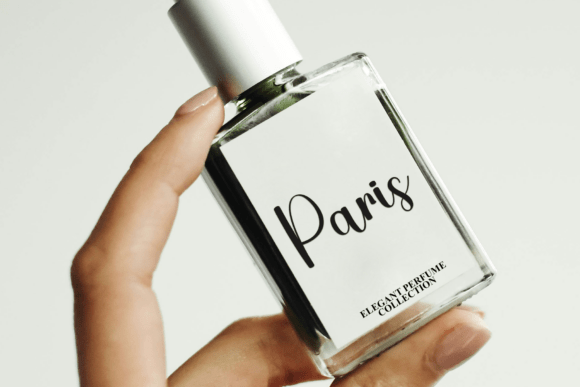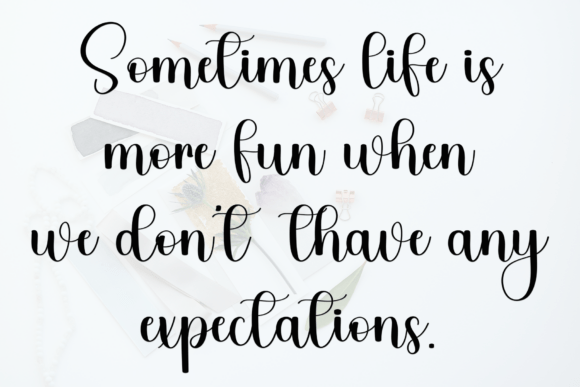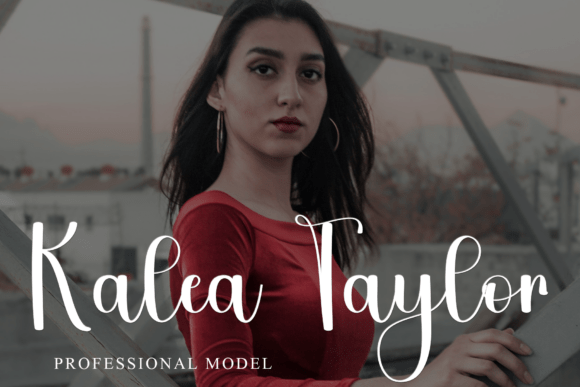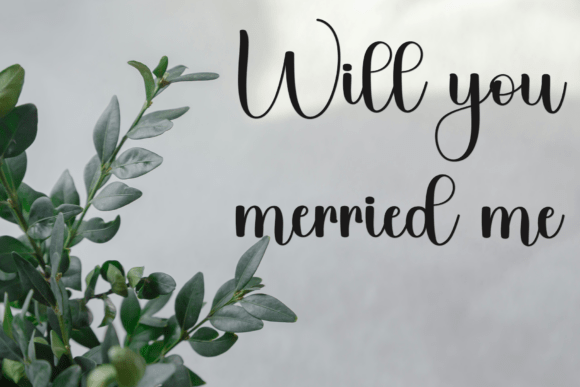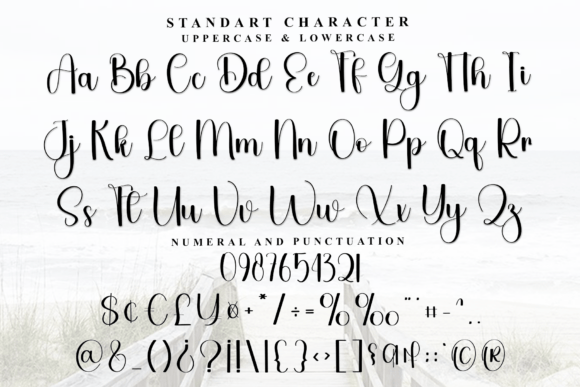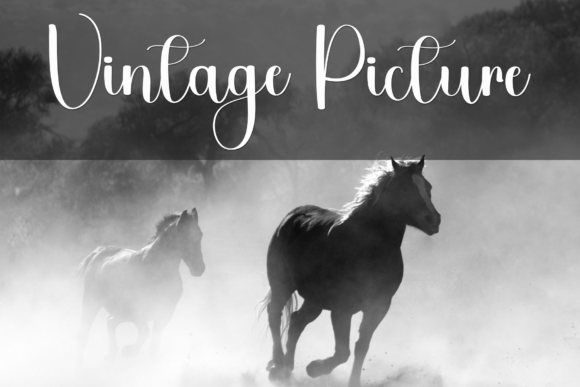
Introducing Handmade Daily Font: Elevate Your Designs with a Unique Touch
In the world of design, fonts play a crucial role in conveying messages, evoking emotions, and creating a lasting impression. For designers, crafters, and creative enthusiasts, finding the perfect font can be a daunting task. However, with the introduction of Handmade Daily Font, your search can finally come to an end. This beautiful and eye-catching font is designed with a soft, unique touch that sets it apart from the rest.
The Distinctive Character of Handmade Daily Font
Handmade Daily Font boasts distinctive strokes that give it a special character, making it meaningful and versatile for future use. Its unique design ensures that your designs stand out from the crowd, capturing the attention of your audience. Whether you’re working on a design project, crafting a brand identity, or creating artistic pieces, this font is perfect for adding a personal touch.
Endless Possibilities with Handmade Daily Font
One of the most significant advantages of Handmade Daily Font is its versatility. With a wide range of characters, you can experiment with various design combinations to bring your creative vision to life. This font is ideal for a multitude of applications, including:
- Design projects: Add a touch of elegance and sophistication to your designs, making them perfect for branding, advertising, and marketing materials.
- Crafts: Use Handmade Daily Font to create unique and personalized crafts, such as handmade cards, gift tags, and DIY projects.
- Artistic works: Enhance your artistic pieces with a font that complements your creative style, making it perfect for illustrations, paintings, and mixed media art.
Enhance Your Designs with Handmade Daily Font
With Handmade Daily Font, you can elevate your designs and make them appealing to a wide range of audiences across different artistic and creative fields. The natural font style and soft touch of this font ensure that your designs exude warmth, personality, and character. By incorporating Handmade Daily Font into your creative projects, you can:
- Create a lasting impression: Make your designs memorable and impactful with a font that stands out.
- Convey emotions: Use the font to evoke emotions and create a connection with your audience.
- Add a personal touch: Infuse your designs with a unique and personal touch that sets them apart.
In conclusion, Handmade Daily Font is a beautiful and versatile font that can elevate your designs and creative projects. With its distinctive strokes, wide range of characters, and compatibility across various platforms, this font is perfect for designers, crafters, and creative enthusiasts. Whether you’re looking to add a touch of elegance, create a lasting impression, or convey emotions, Handmade Daily Font is the perfect choice. So why wait? Discover the endless possibilities of Handmade Daily Font and take your designs to the next level.